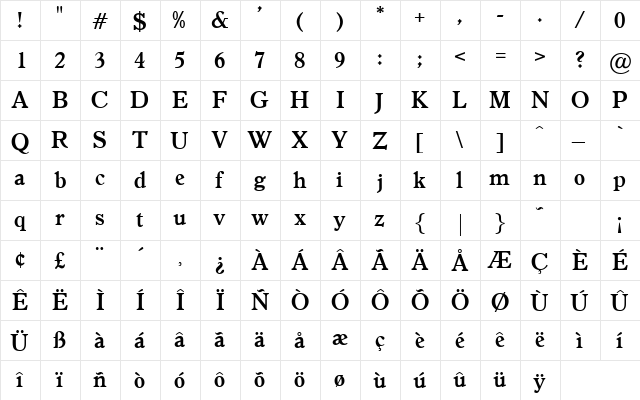
Ittery Regular Font Preview
Ittery Regular
Design Context for Ittery Typeface
Ittery offers clean, dependable letterforms without strong stylistic allegiance, making it a practical choice for designers who need flexibility.